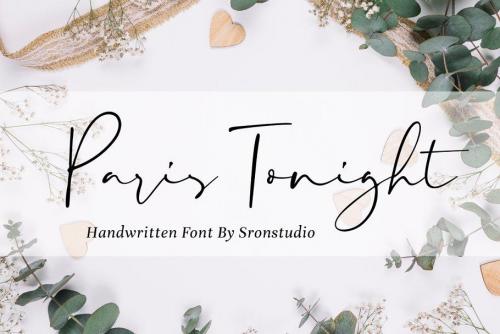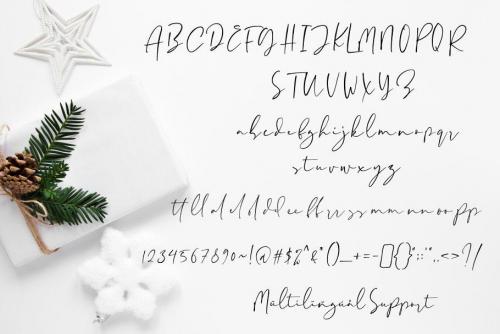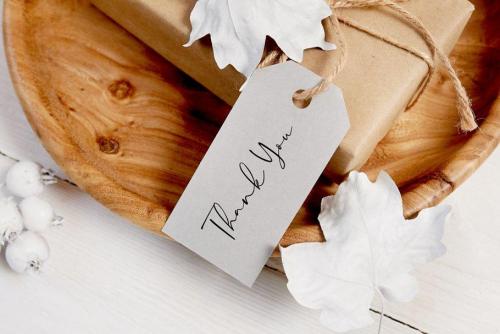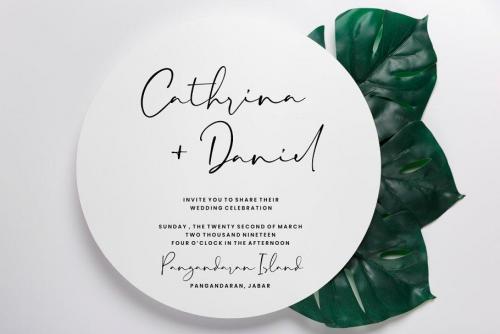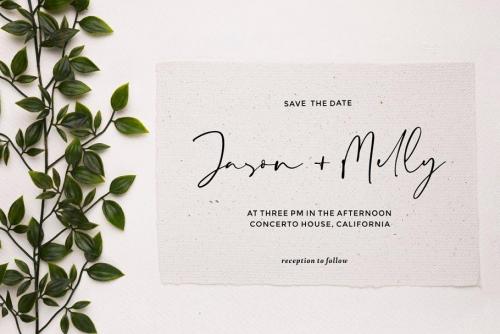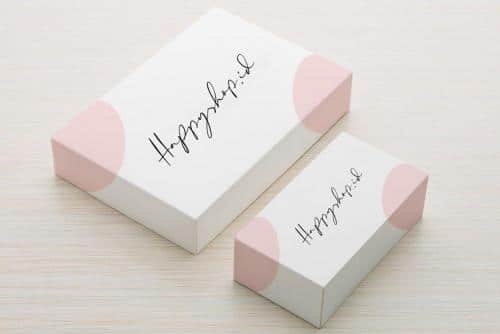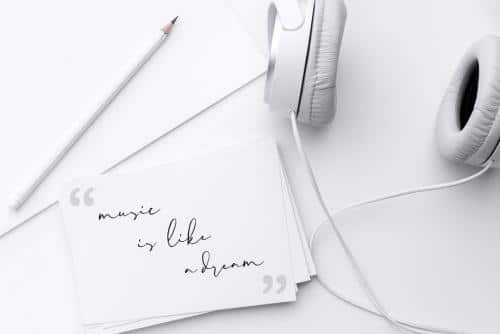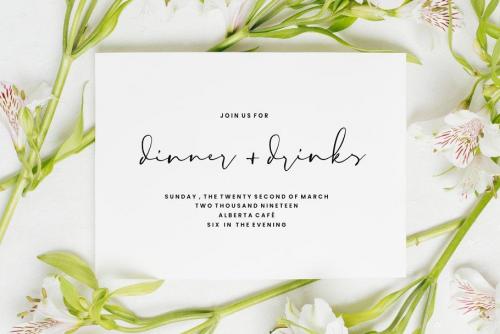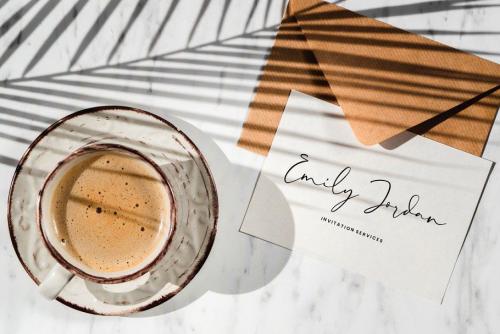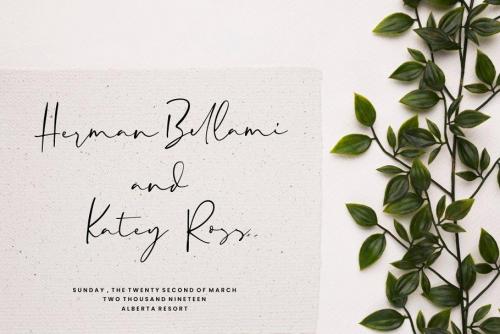
Paris Tonight is a natural handwritten font, this font Is perfect for logo, invitation, stationery, wedding designs, social media posts, advertisements, product packaging, product designs, label, photography, watermark, special events or anything.
Paris Tonight comes with full set of uppercase and lowercase letters, multilingual symbols, numerals, punctuation.